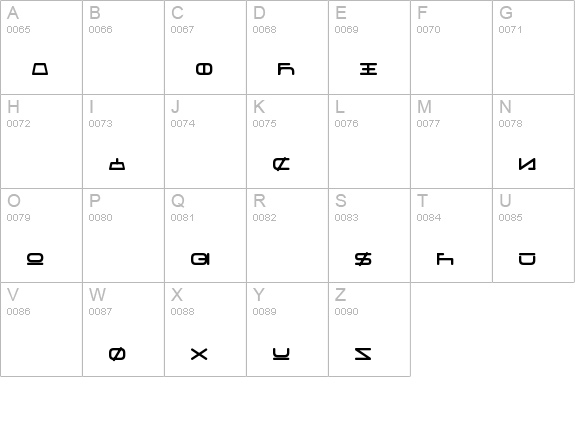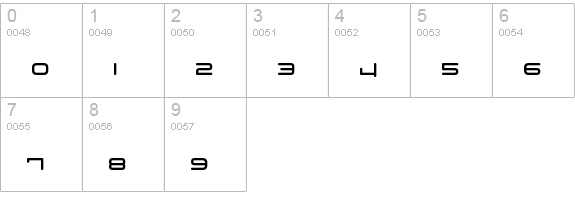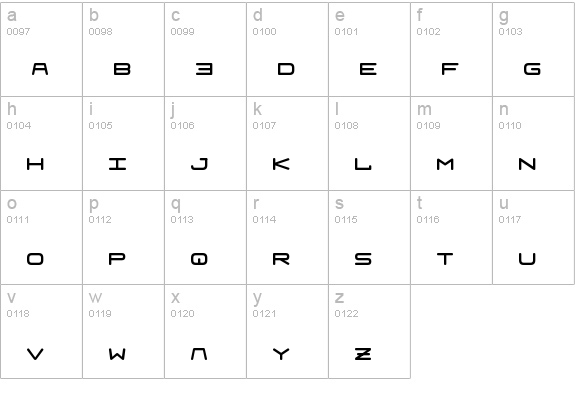
Fraulein Unifon Font Details
Fraulein Unifon font is a modern and elegant typeface that combines sleek lines with a touch of sophistication. Its clean and sleek design makes it perfect for a wide range of projects, from branding to editorial design. With a unique and distinctive look, Fraulein Unifon font stands out while maintaining a sense of professionalism. What makes Fraulein Unifon font even more appealing is that it is available for free download at FontsMarket.com. This means that you can easily access this versatile typeface without any cost, making it a great choice for designers and creatives looking to enhance their projects without breaking the bank. Overall, Fraulein Unifon font is a versatile and stylish typeface that is sure to elevate your designs. Whether you're working on a branding project or creating eye-catching social media graphics, this font is a fantastic choice that is both high-quality and free to download.